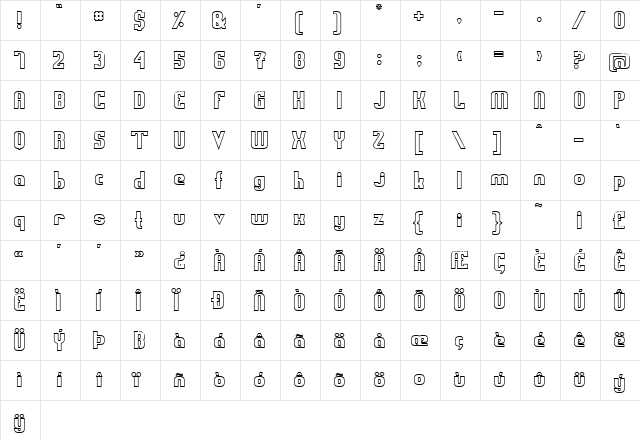
Sweden Funkis StraightOutlined Regular
Design Context for Sweden Funkis StraightOutlined Typeface
Sweden Funkis StraightOutlined has an approachable, lighthearted character — its loose, expressive forms are well-suited to children's content, casual branding, and fun-first design.
Great for children's books, toy packaging, family event branding, and casual consumer-facing design.
Font Pairing: Pairs well with a rounded or humanist sans for body copy, maintaining the friendly tone without relying on Sweden Funkis StraightOutlined to carry extended reading.
Pro Tip: Avoid using Sweden Funkis StraightOutlined for long passages of text — it works best for headlines, labels, and short calls to action.